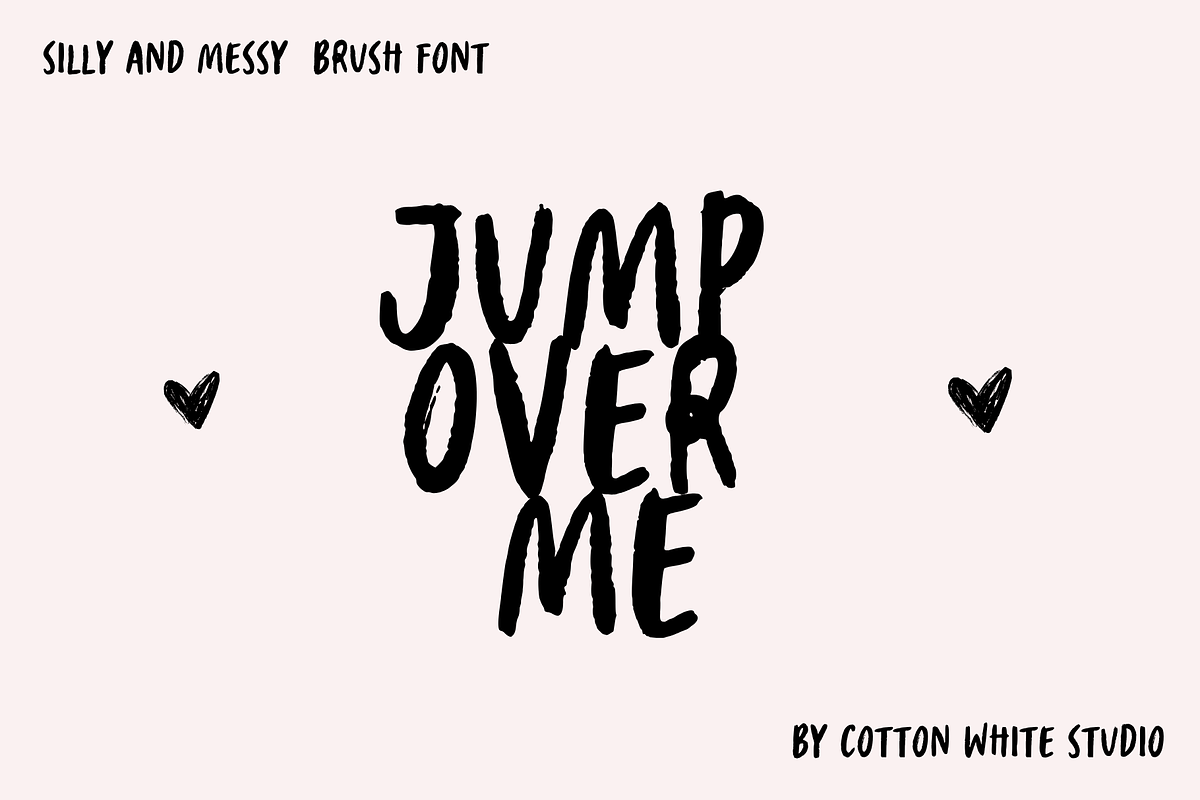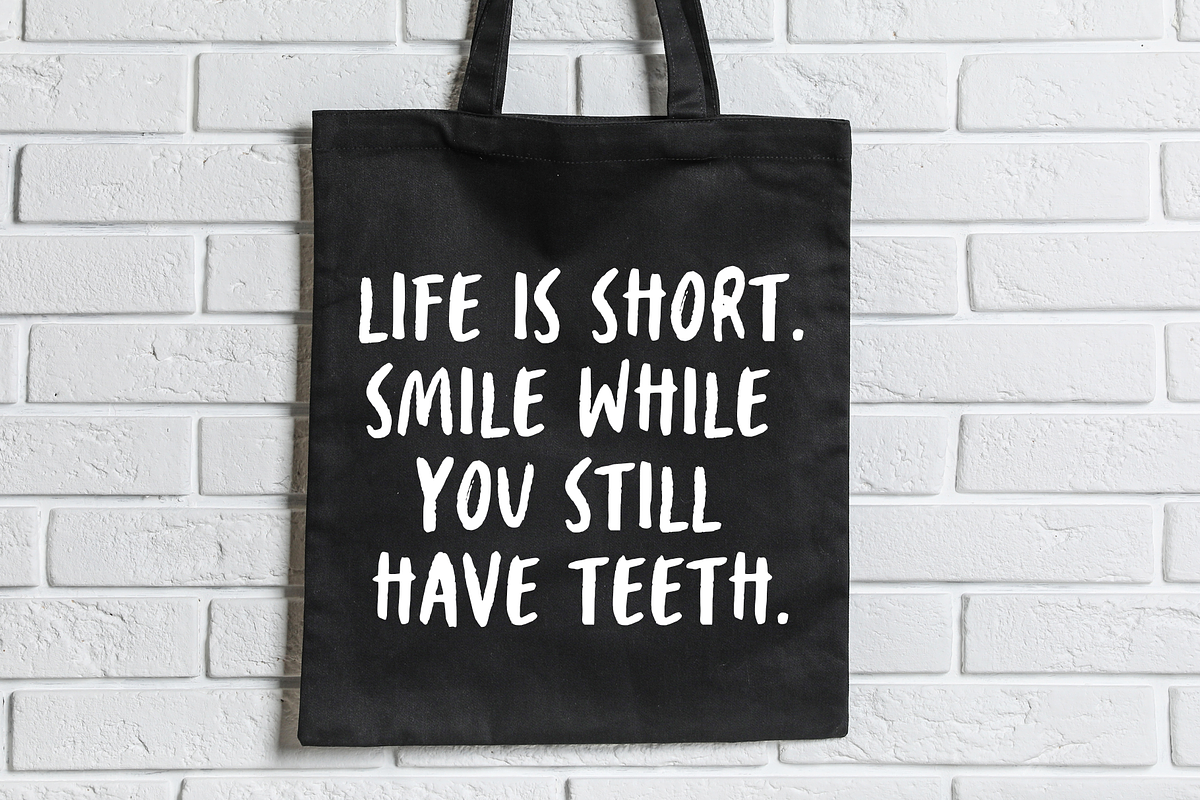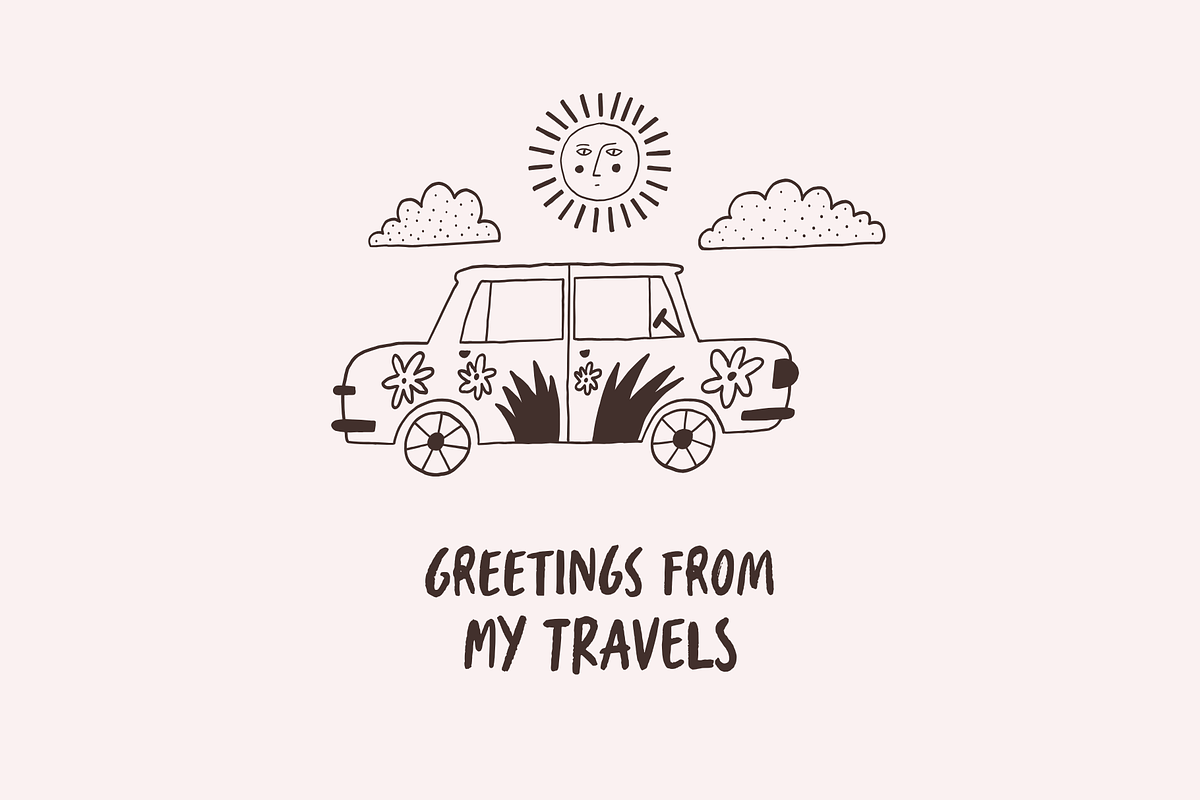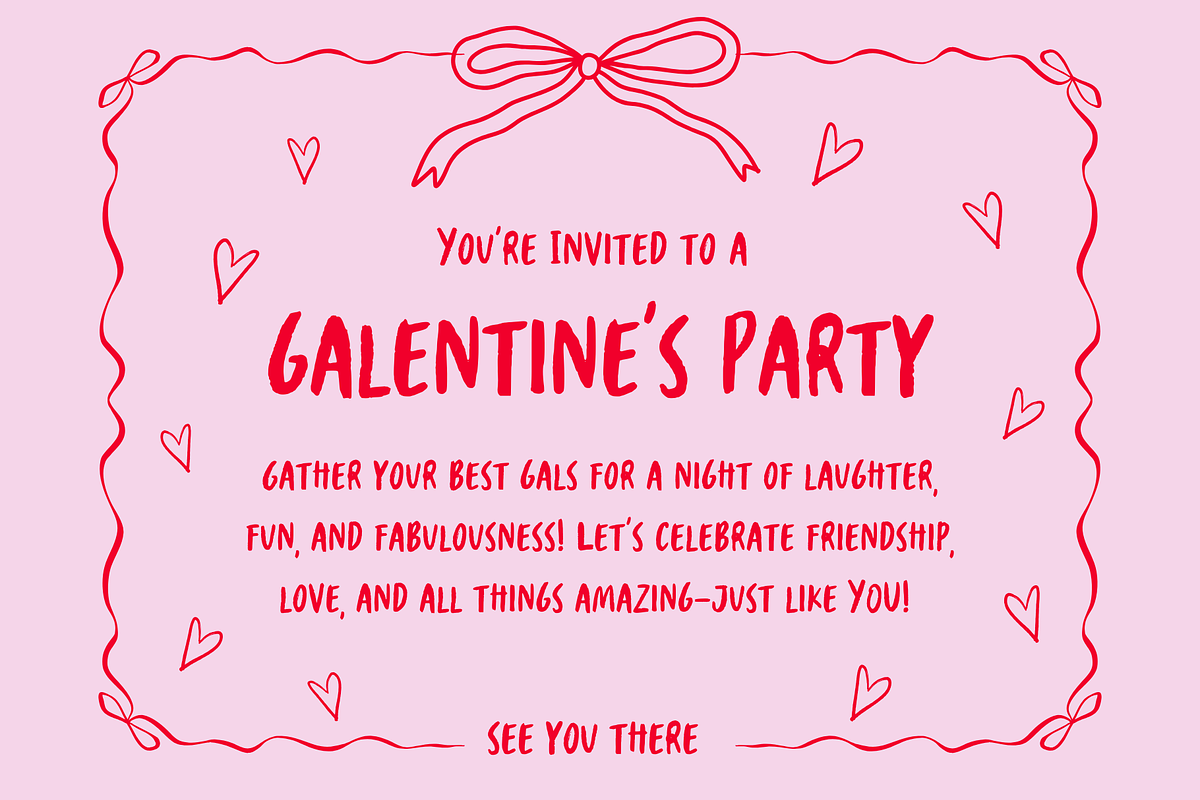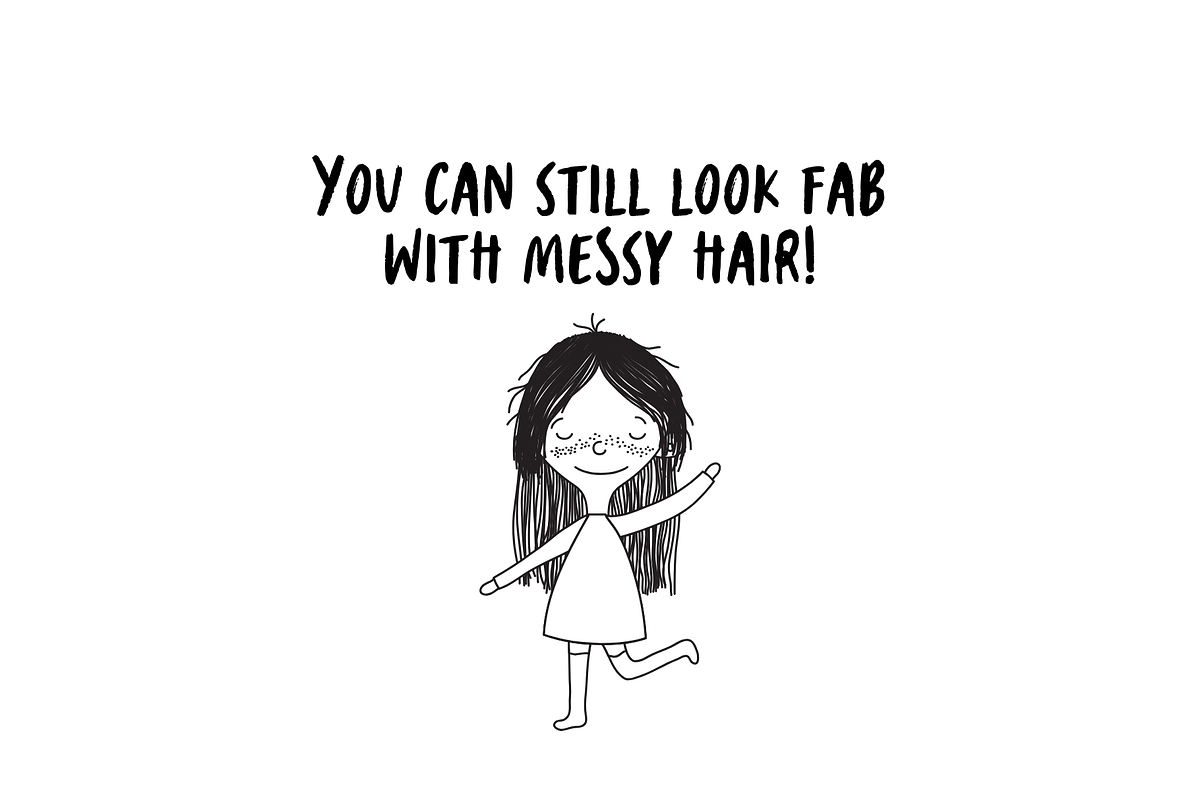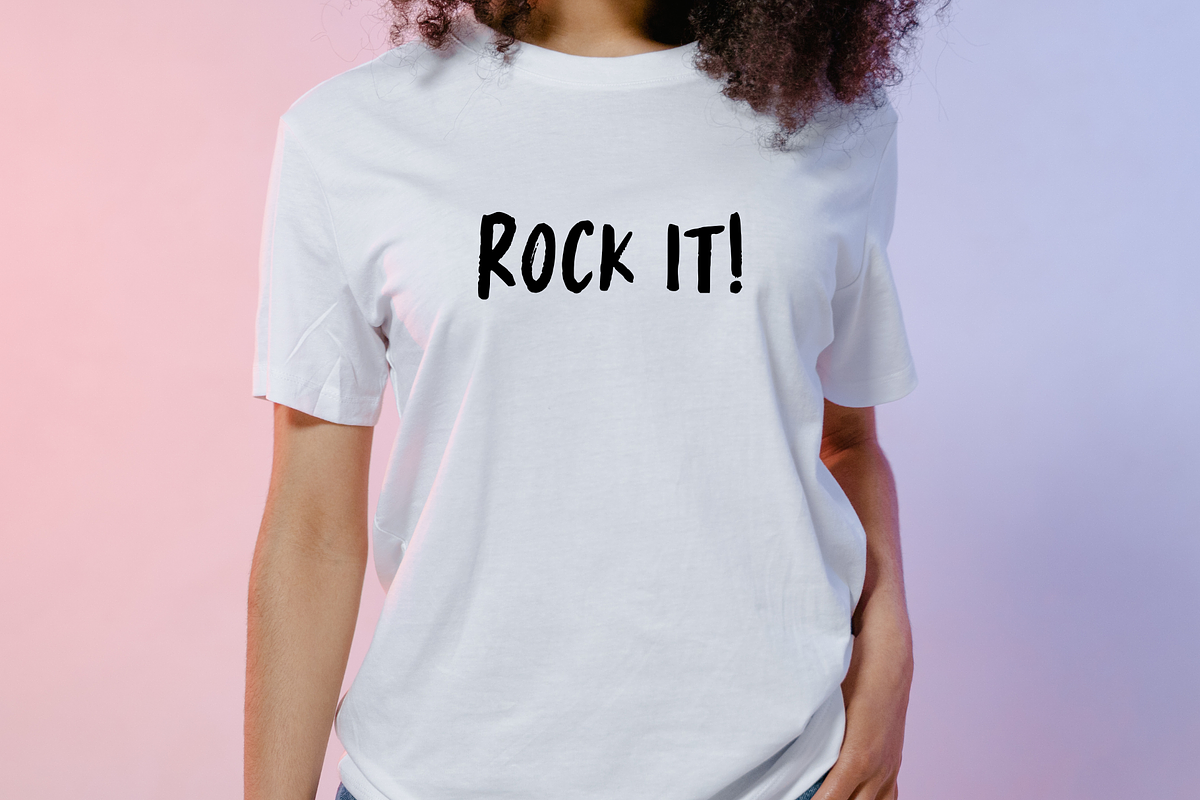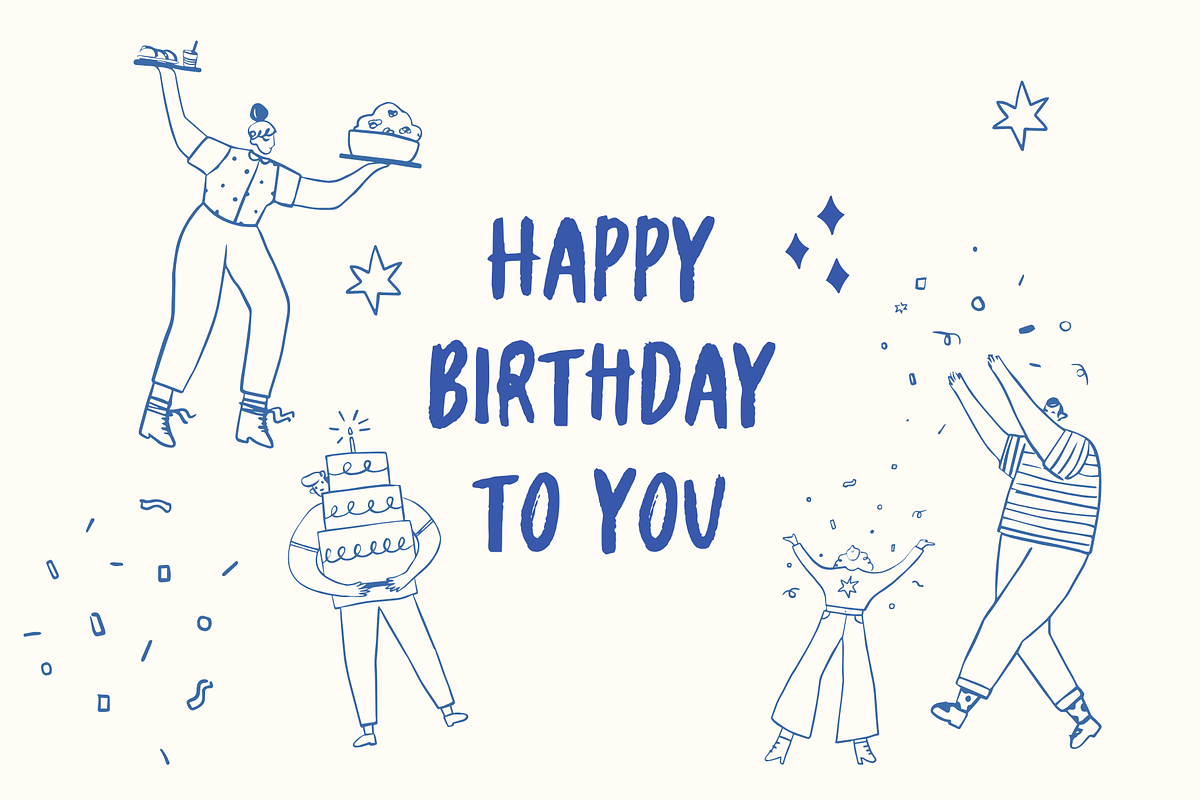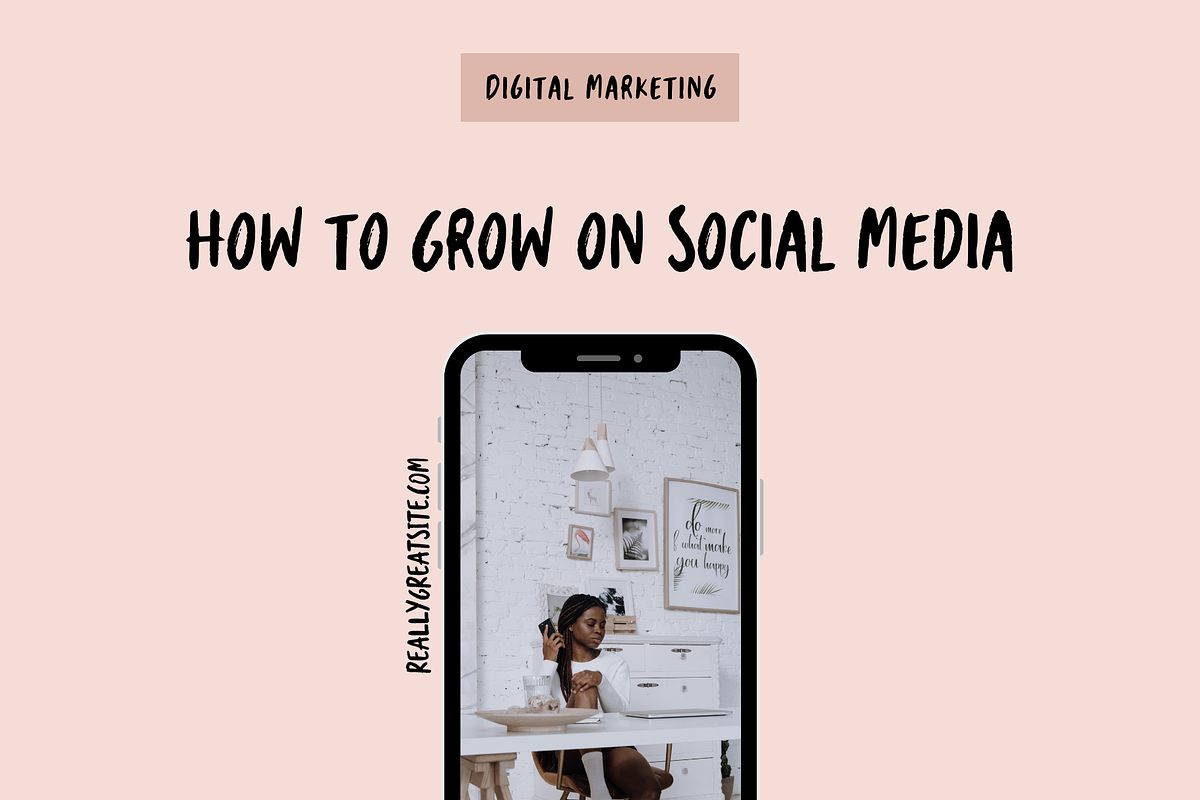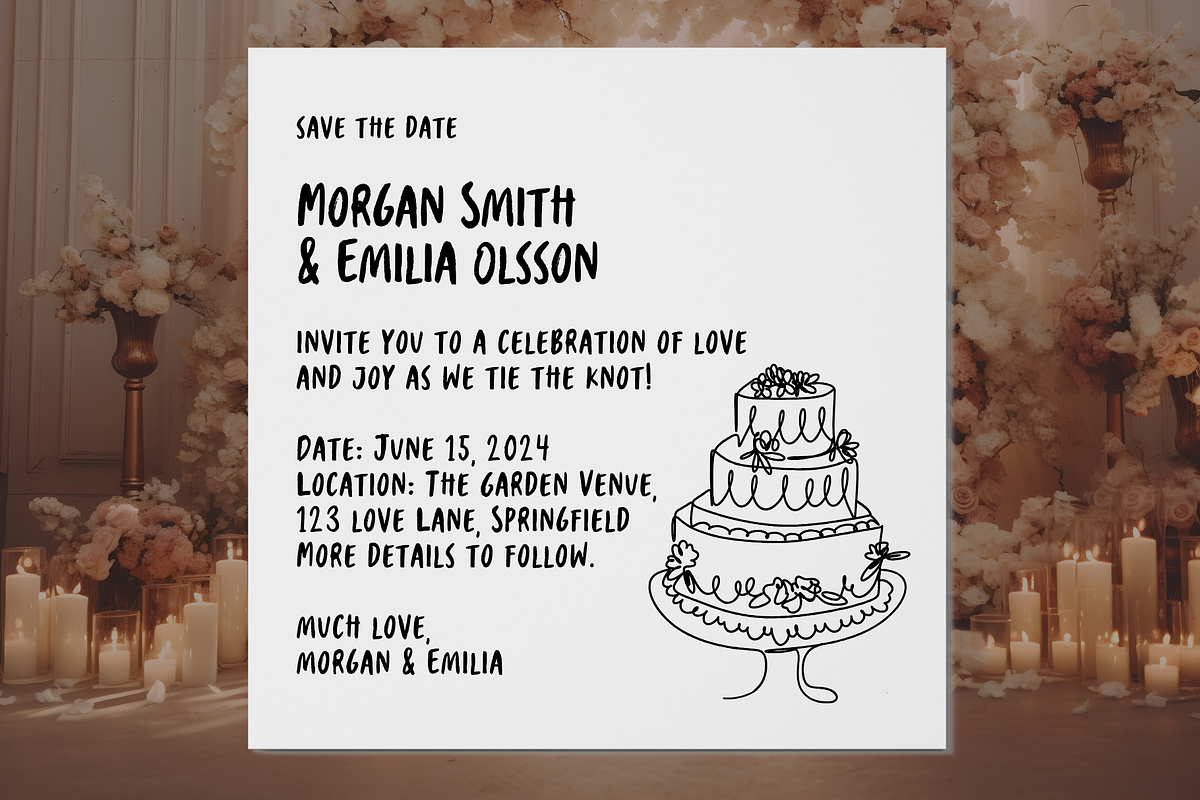
Jump Over Me Handwritten Brush Font
Unleash your creativity with our quirky font! This playful typeface is designed to add a splash of personality to your projects, making every word come alive. Perfect for invitations, social media graphics, or any design that needs a touch of whimsy, our font stands out with its unique curves and character. Whether you're crafting a fun poster or a charming logo, this font will captivate your audience and leave a lasting impression.